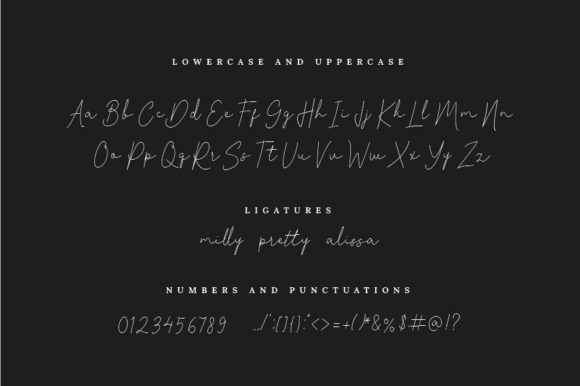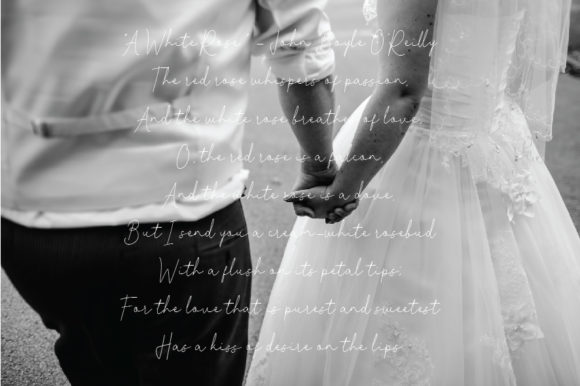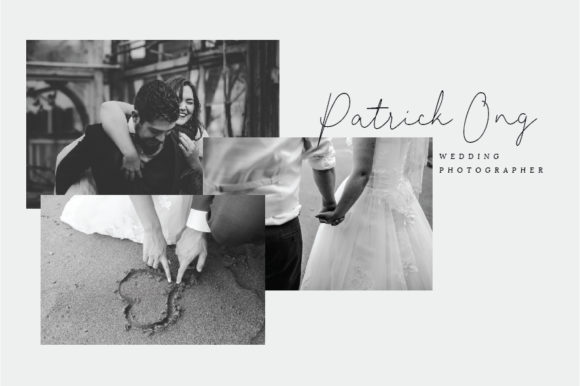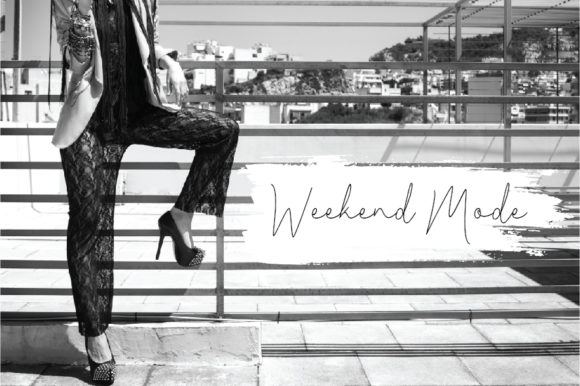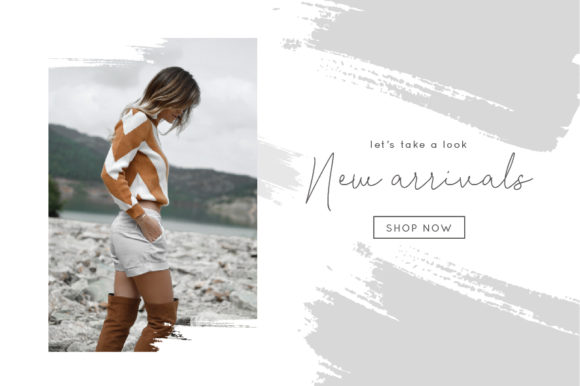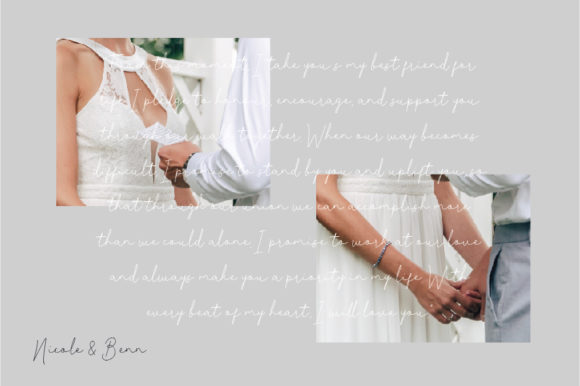
Audina Font: Elevate Your Designs with a Stylish and Fashionable Script
In the world of typography, fonts play a crucial role in conveying the tone and personality of a design. For crafters, designers, and creative enthusiasts, finding the perfect font can make all the difference in bringing their projects to life. If you’re on the hunt for a stylish and fashionable script that adds a touch of sweetness to your designs, look no further than Audina Font. In this article, we’ll dive into the world of Audina Font, exploring its features, uses, and benefits, as well as provide tips on how to incorporate it into your next creative project.
What is Audina Font?
Audina Font is a beautiful, hand-crafted script font designed to bring a touch of elegance and sophistication to your designs. With its flowing curves and delicate lines, Audina exudes a sense of femininity and whimsy, making it perfect for projects that require a dash of personality. Whether you’re working on a branding campaign, a wedding invitation, or a DIY craft project, Audina Font is sure to impress.
Key Features of Audina Font
So, what sets Audina Font apart from other script fonts on the market? Here are some of its key features:
- Unique and elegant design: Audina Font boasts a distinctive, hand-drawn design that adds a touch of sophistication to any project.
- Highly legible: Despite its ornate nature, Audina Font is surprisingly easy to read, making it perfect for use in body text or captions.
- Multilingual support: Audina Font supports a range of languages, including English, French, German, and Spanish, making it a great choice for international projects.
Uses for Audina Font
Audina Font is a versatile font that can be used in a variety of creative projects, including:
- Branding and packaging: Add a touch of elegance to your brand’s logo, packaging, or marketing materials with Audina Font.
- Wedding and event planning: Create beautiful wedding invitations, programs, and signage with Audina Font’s romantic and whimsical feel.
- Crafting and DIY projects: Add a personal touch to your handmade crafts, such as knitting patterns, sewing projects, or woodworking designs.
- Digital design: Use Audina Font in your digital designs, such as social media graphics, blog headers, or email newsletters.
Tips for Using Audina Font
To get the most out of Audina Font, here are some tips to keep in mind:
- Pair with contrasting fonts: Combine Audina Font with a bold, sans-serif font to create visual interest and contrast.
- Experiment with colors: Try pairing Audina Font with pastel colors or metallic ink to add a touch of whimsy and sophistication.
- Use in moderation: While Audina Font is beautiful, it can be overwhelming if overused. Balance it with other fonts and design elements to create a cohesive look.
In conclusion, Audina Font is a stylish and fashionable script that’s perfect for adding a sweet touch to your next creative project. With its unique design, high legibility, and versatility, Audina Font is a great choice for designers, crafters, and creative enthusiasts alike. Whether you’re working on a branding campaign, a wedding invitation, or a DIY craft project, Audina Font is sure to impress. So why not give it a try and see the difference it can make in your designs?